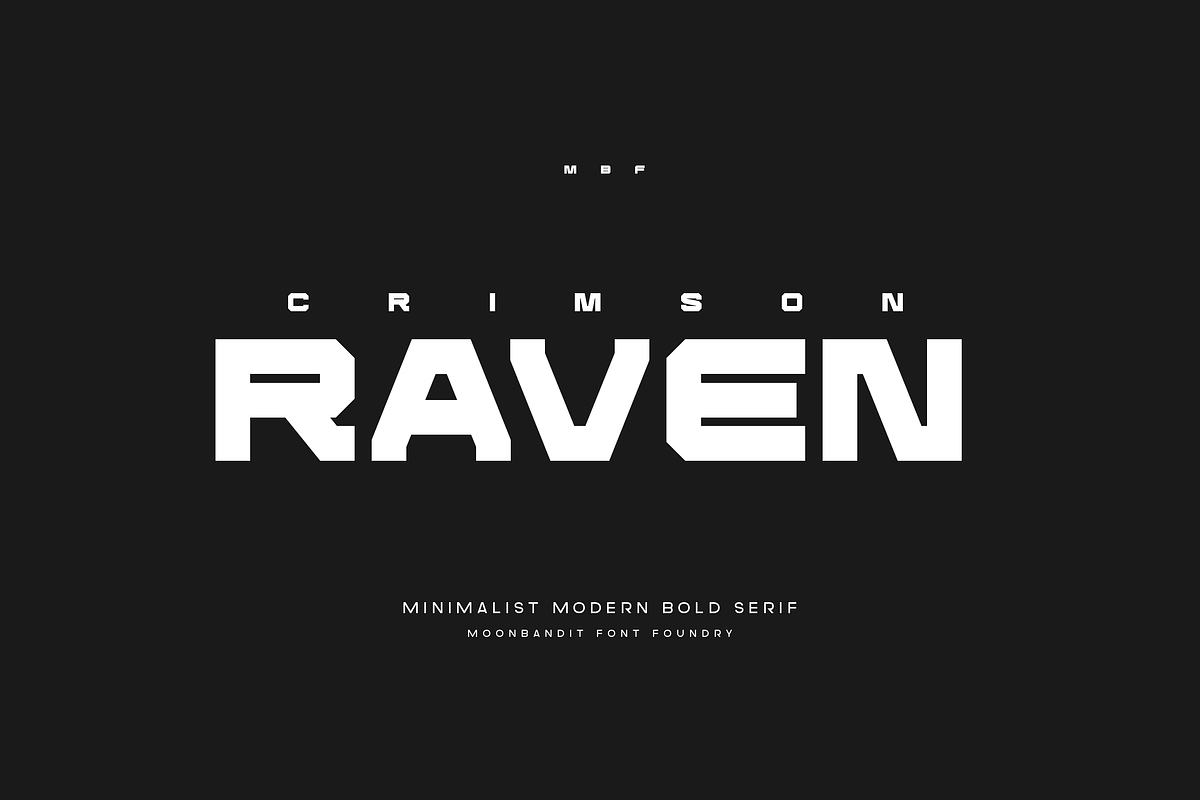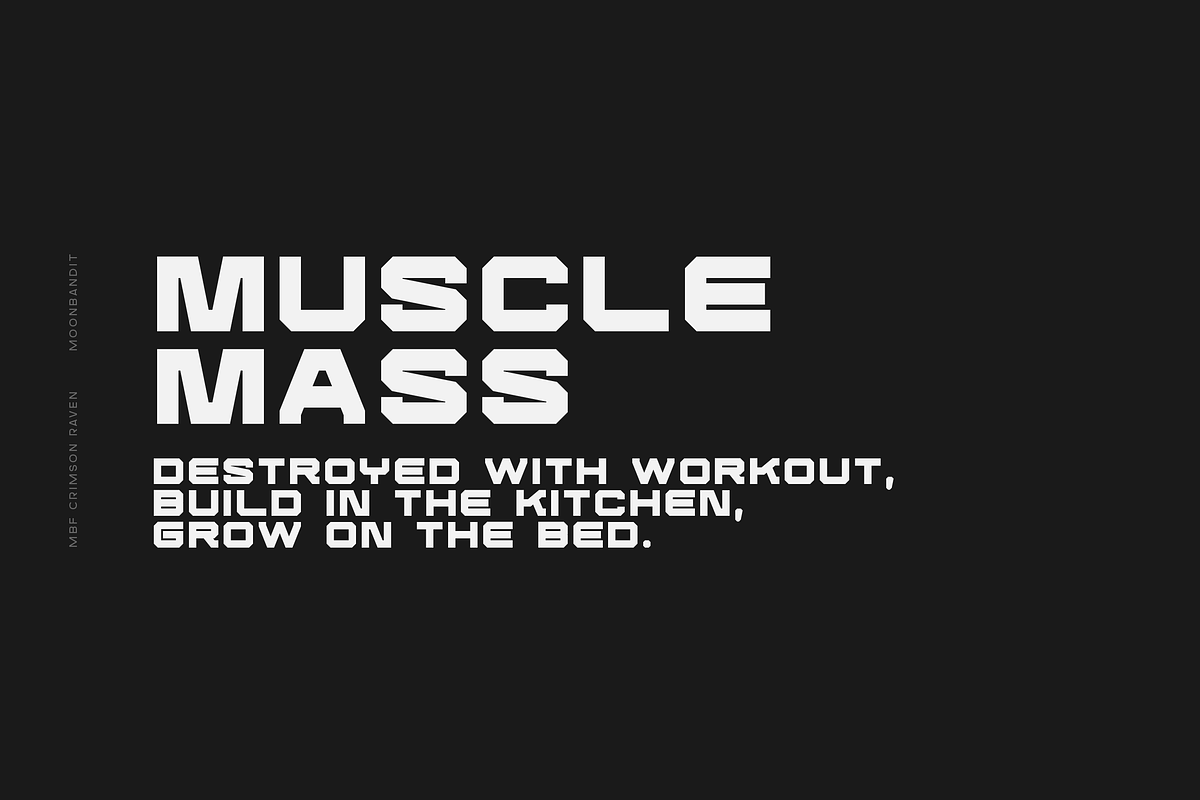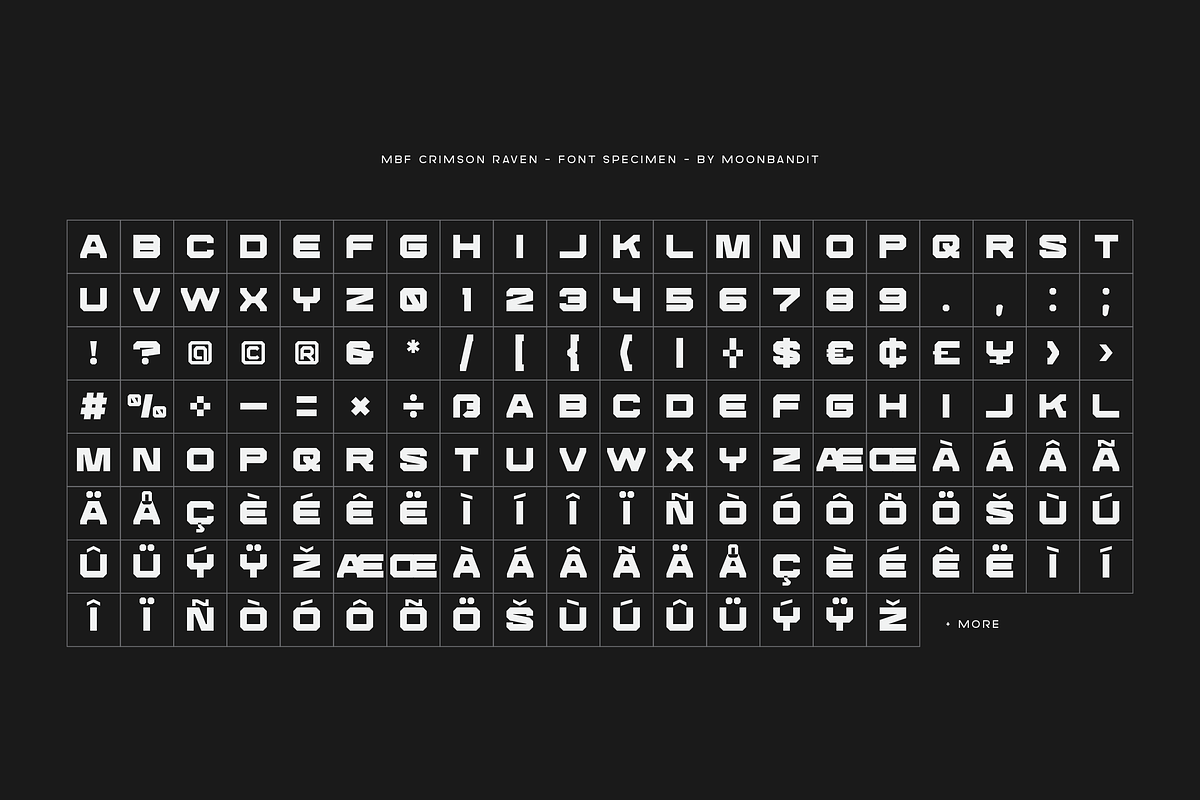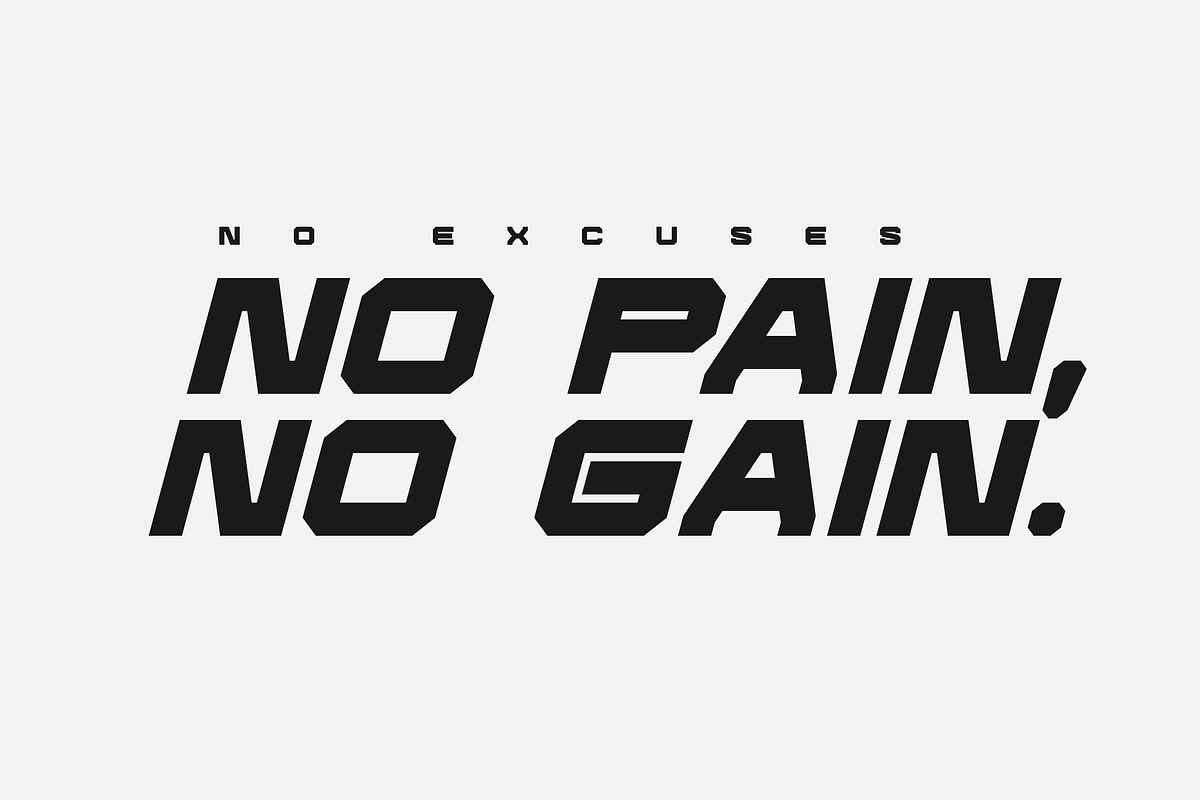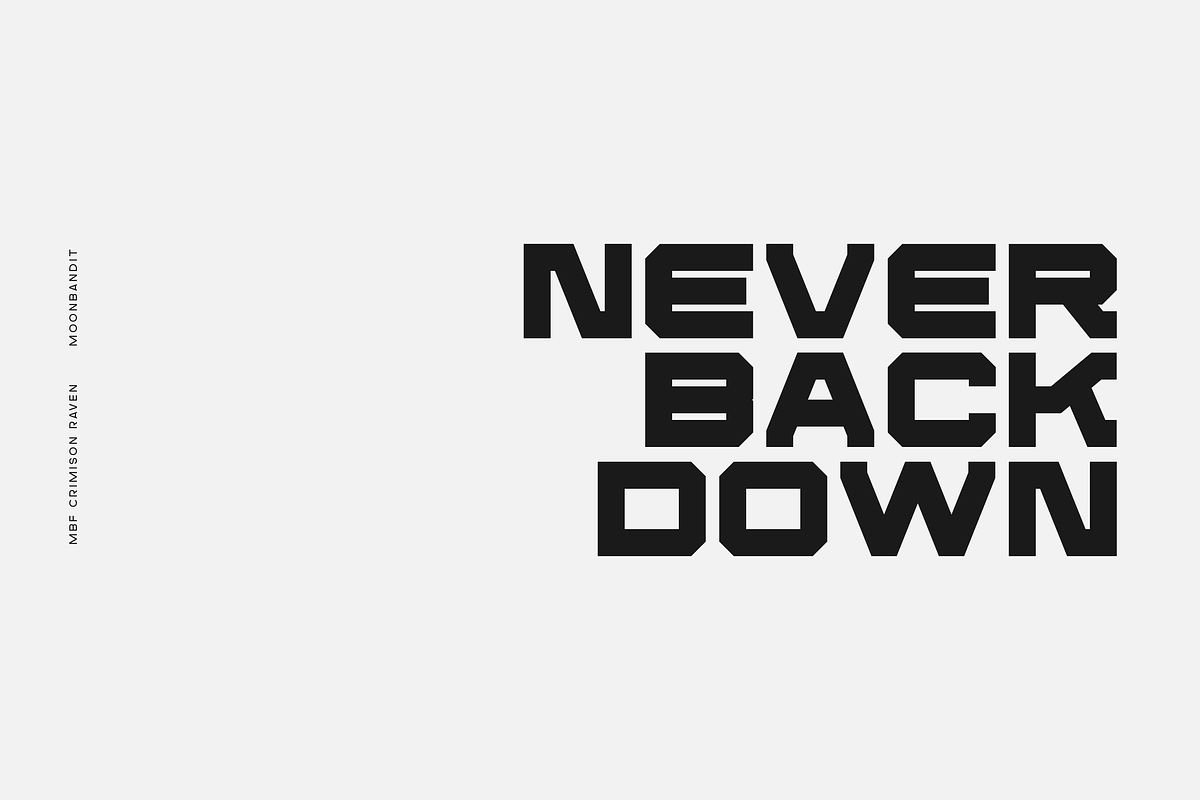
MBF Crimson Raven
Future-proof your brand with MBF Crimson Raven, a strategic font choice that combines modern simplicity with futuristic flair, driving business results.